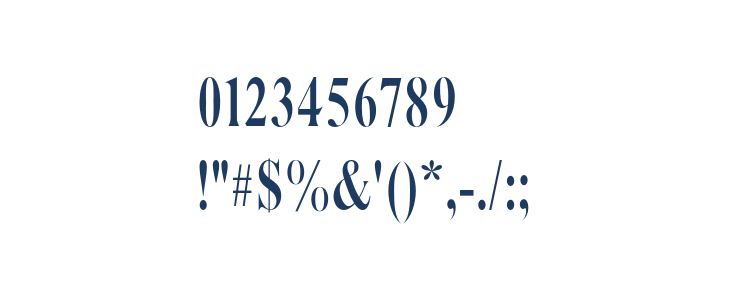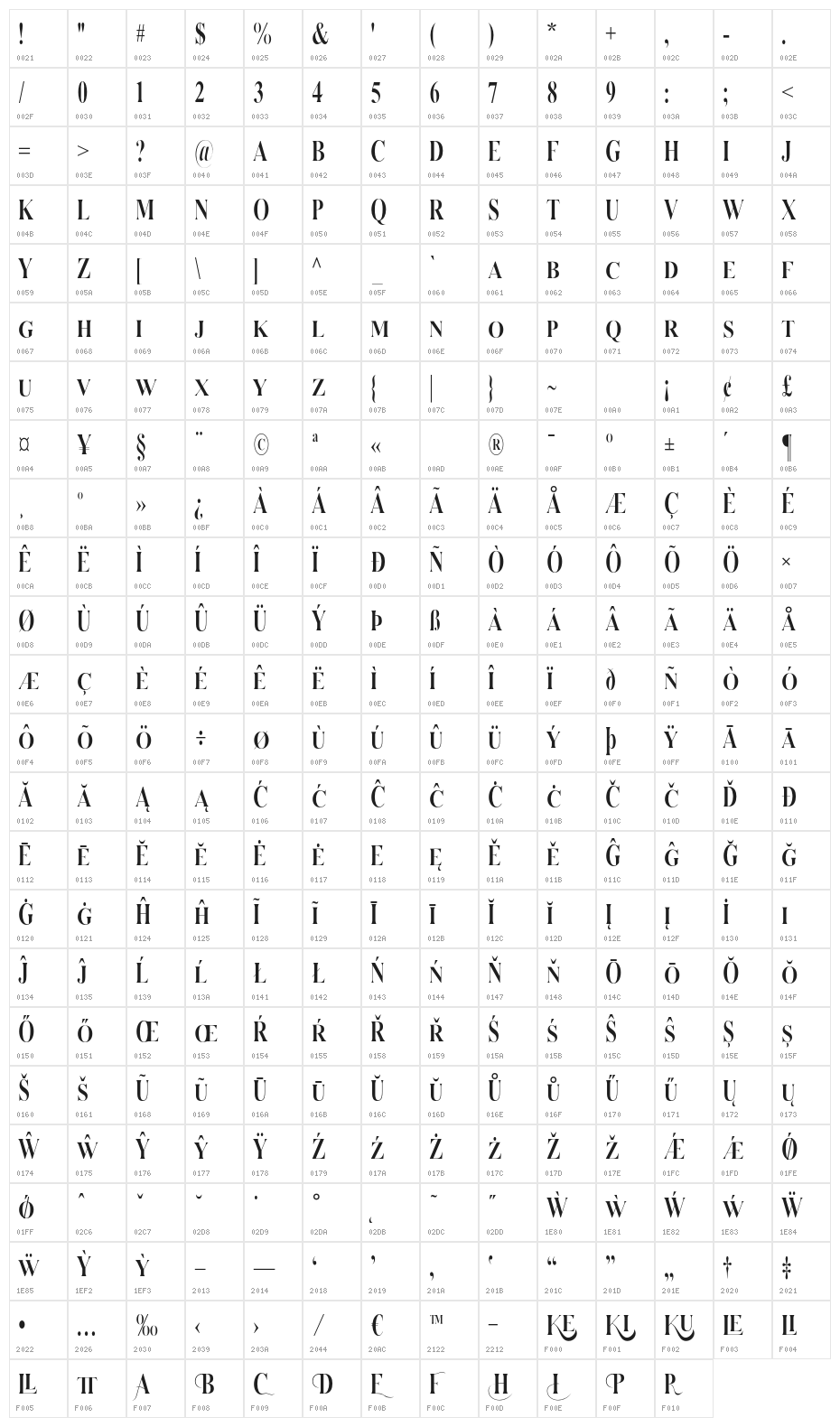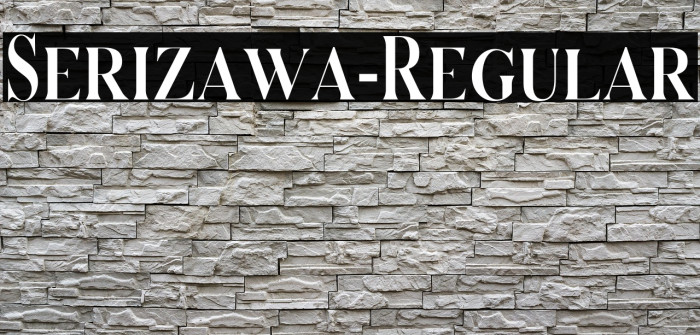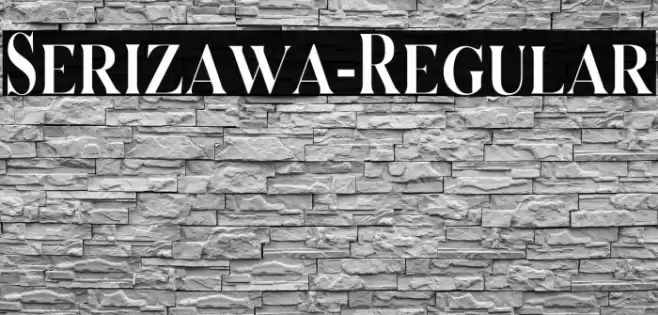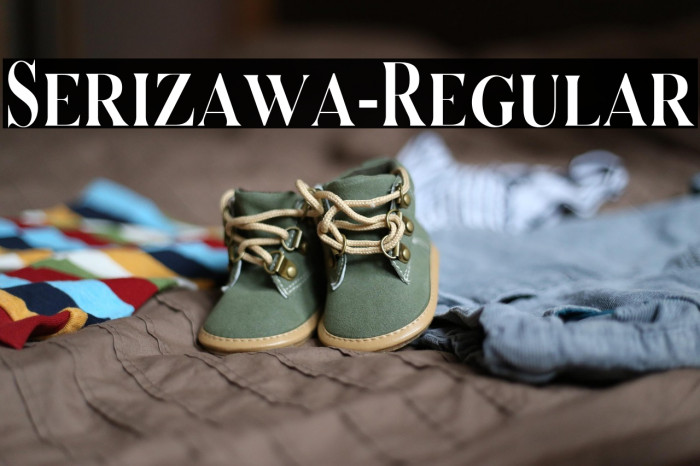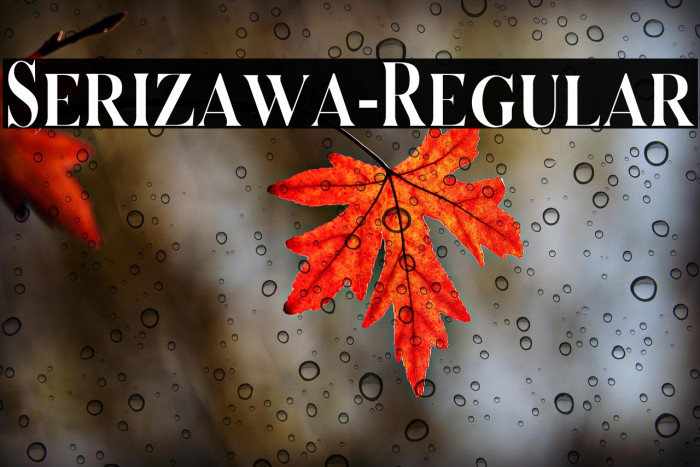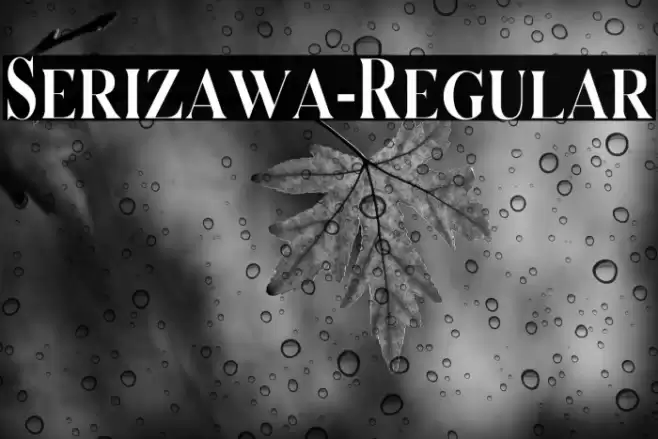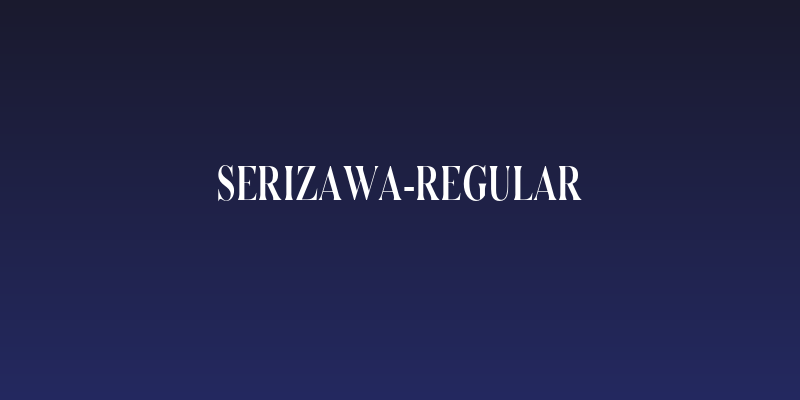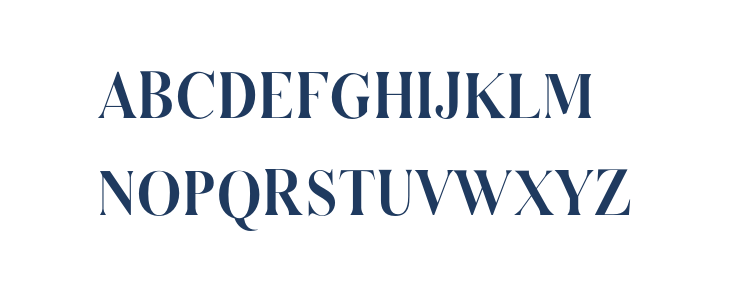
Serizawa-Regular Font
Serizawa-Regular Description
This font features a bold and elegant serif style with high contrast between thick and thin strokes, giving it a dramatic and sophisticated appearance. The uppercase letters are particularly striking, with sharp serifs and a slightly condensed form that adds to its refined look. The lowercase letters maintain the same level of elegance, with a consistent stroke weight that complements the uppercase set. The numerals are clear and distinct, making them suitable for both display and text purposes. Special characters are well-designed, matching the overall aesthetic of the font, which is both classic and modern.